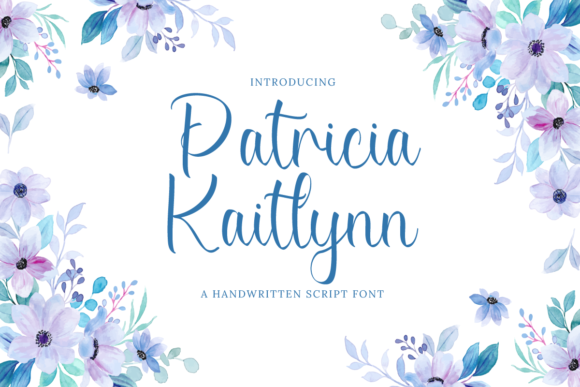
Adorn your Instagram bio with the allure of Patricia Kaitlynn, a script font born from the convergence of elegance and modernity. This exquisite creation from Okara Studio dances across your words, imbuing them with a touch of grace and distinction.
Step into a world of boundless creativity with Patricia Kaitlynn, the script font that breathes life into your branding endeavors. Whether you seek to craft captivating logos, elevate your t-shirt designs, or infuse your creative products with a touch of sophistication, Patricia Kaitlynn stands ready to be your artistic muse.
With its delicate strokes and fashionable flair, Patricia Kaitlynn effortlessly adapts to a myriad of contexts, lending its charm to invitations, greeting cards, and social media posts. Its versatility knows no bounds, allowing you to weave your words into a tapestry of visual delight, transforming your digital presence into an oasis of elegance.
Immerse yourself in the enchanting world of Patricia Kaitlynn, a script font that transcends the ordinary, whispering tales of sophistication and grace. Embrace its allure, and let your creativity soar to new heights.